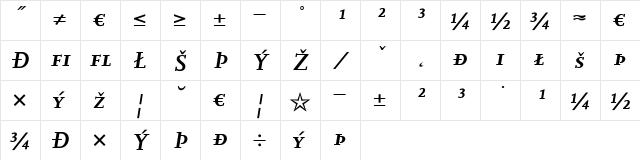
Scala Bold Italic
Design Context for Scala Typeface
Scala offers clean, dependable letterforms without strong stylistic allegiance, making it a practical choice for designers who need flexibility. The dynamic lean of this cut emphasises speed and emphasis in any layout. Its bold stroke weight gives it real presence on the page.
Pro Tip: Try Scala for annotation and caption copy alongside an upright companion — the contrast in angle creates a dynamic but ordered typographic system.